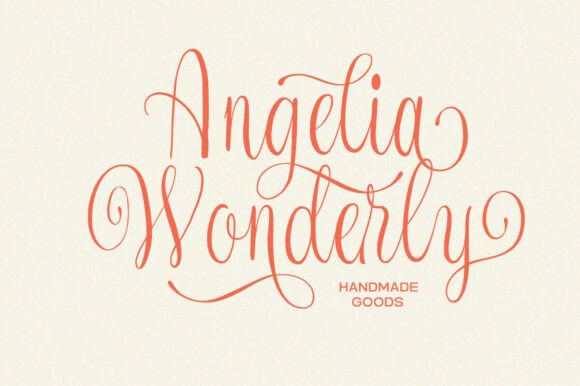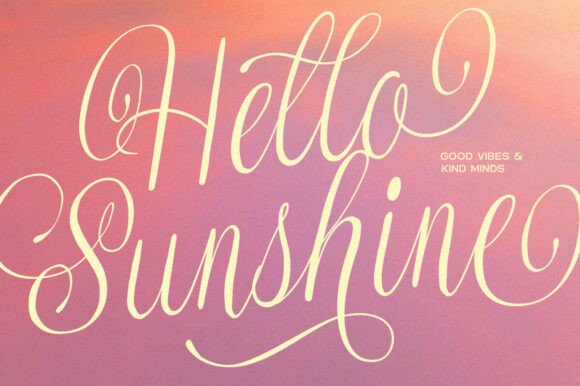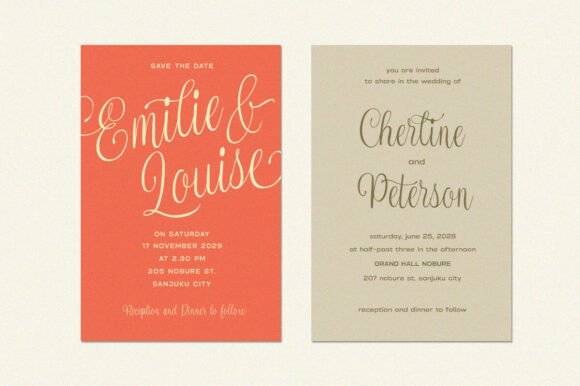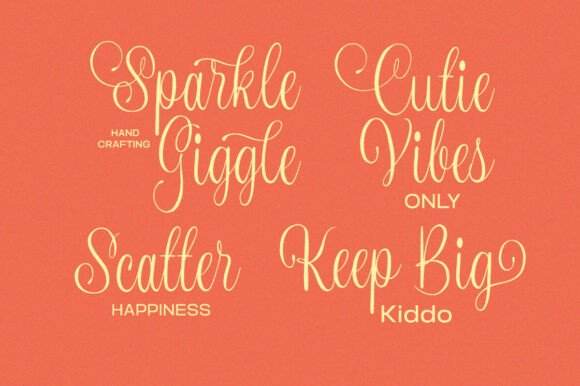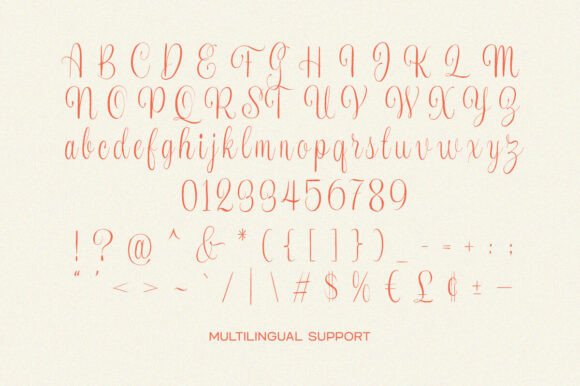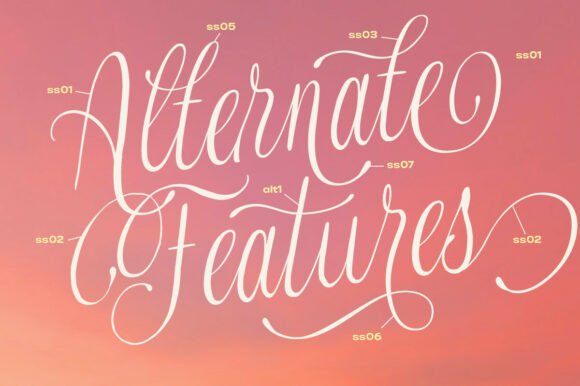
Introduction to Melorinescript Font
Melorine Script is a smooth handwritten script font with elegant strokes, gentle curves, and a soft, feminine feel.
Designed to look natural and effortlessly stylish, this font comes in Regular and Slanted styles, perfect for branding, wedding invitations, logos, quotes, packaging, and modern calligraphy projects The typeface is highly versatile, provided in both Regular and Slanted styles, making it perfect for custom wedding invitations, soft-touch branding, personal logotypes, and any project that requires a sweet, romantic, or luxurious feel.
Key Features of Melorinescript Font
Why Choose Melorinescript Font?
Melorinescript Font offers exceptional quality and versatility, making it a valuable addition to your design toolkit. Whether you’re creating for personal projects or commercial use, Melorinescript Font delivers professional results.